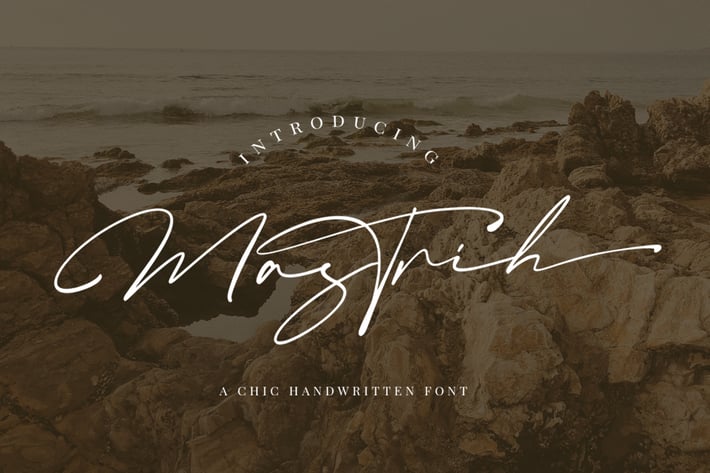
Mastrih Signature Font
This enchanting font will turn any creative idea into a true standout. Perfect fit for all of your logos, branding, social media, etc.
Get creative with its unique playfulness, and use it to brighten up any crafting project!
Mastrih Font Features :
Uppercase + Lowercase Letters
Numbers + Punctuation
Ligature Feature
OpenType features